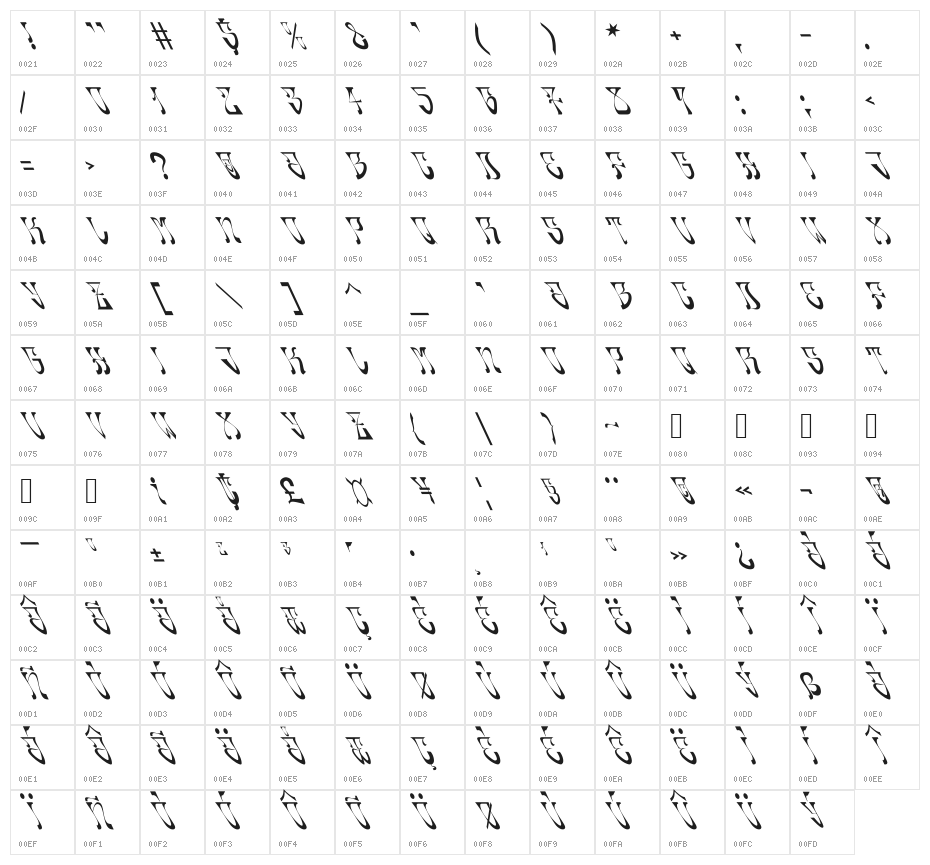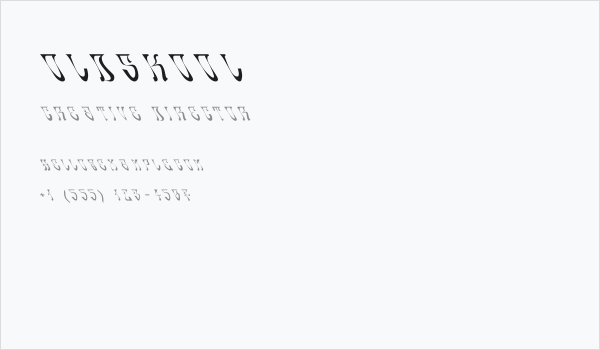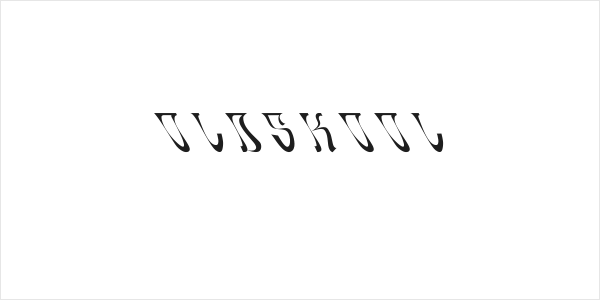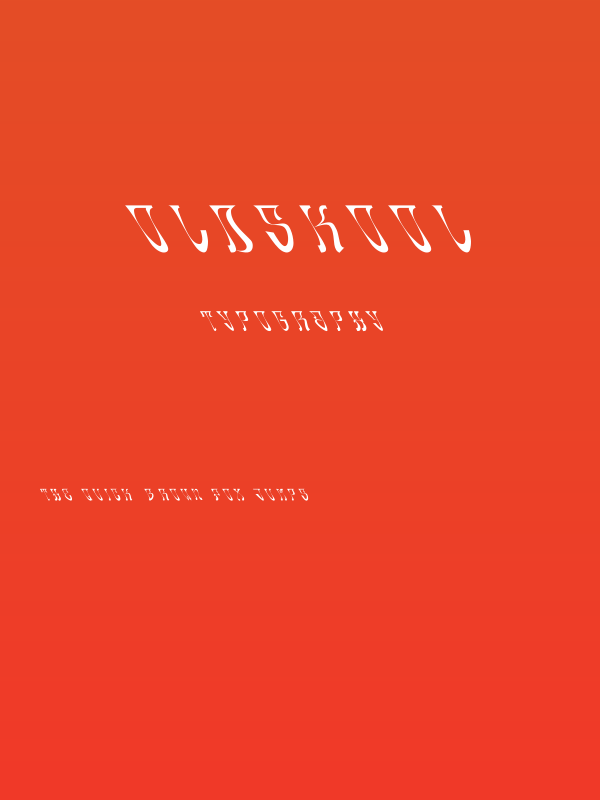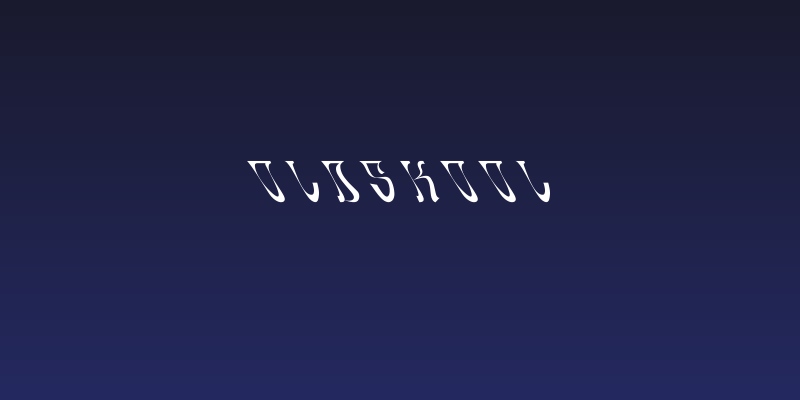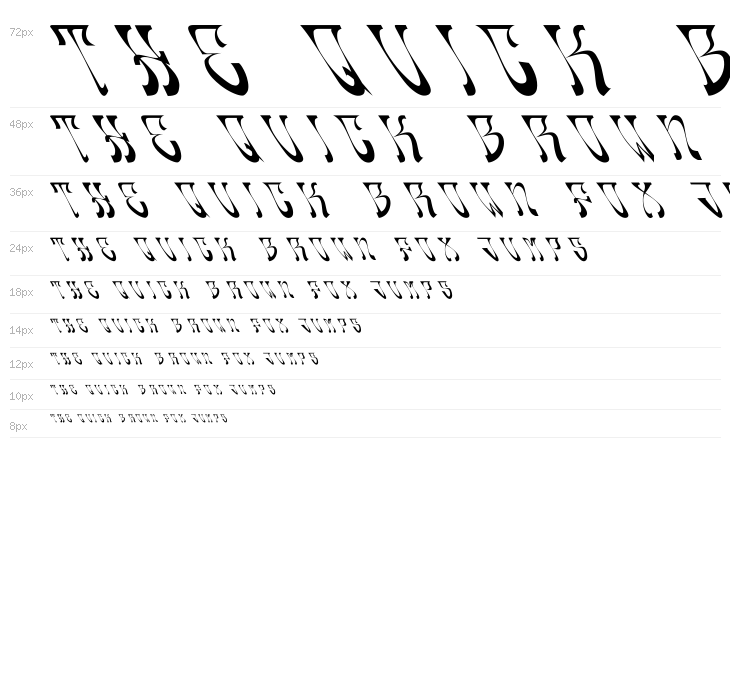
Oldskool Font
Oldskool Description
This font exudes a dynamic and edgy style, characterized by its sharp, angular lines and bold presence. The uppercase and lowercase letters share a consistent slant, giving the font a sense of motion and energy. The numbers and special characters maintain this aesthetic, with exaggerated curves and pointed edges that add to the overall dramatic effect. The font's unique style makes it stand out, with a high contrast between thick and thin strokes that enhances its visual impact. This font is perfect for projects that require a bold statement and a touch of rebellious flair.
Proposed ProjectsPerfect for album covers, posters, branding for edgy or alternative products, and any project needing a bold, rebellious touch.